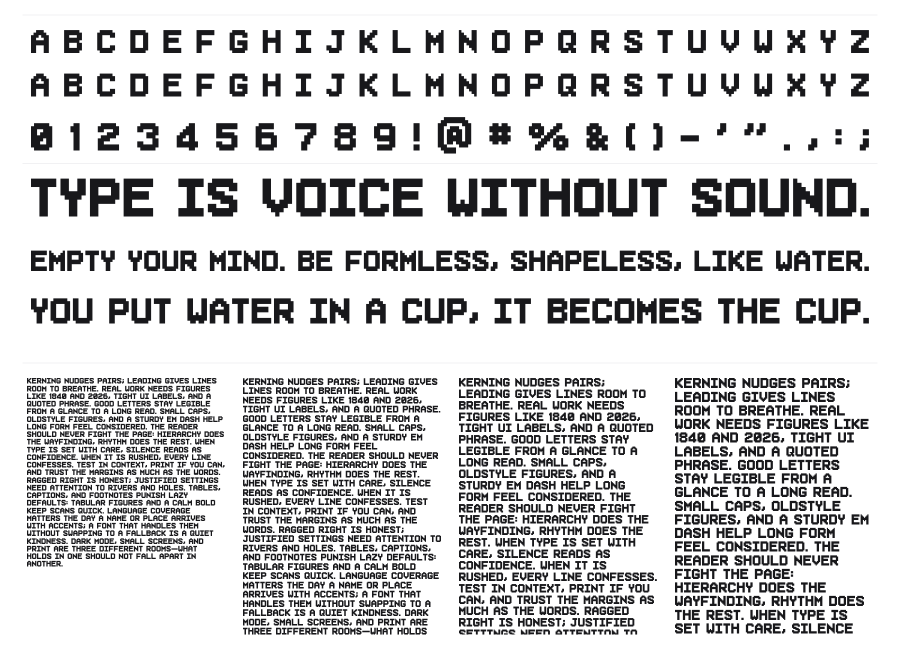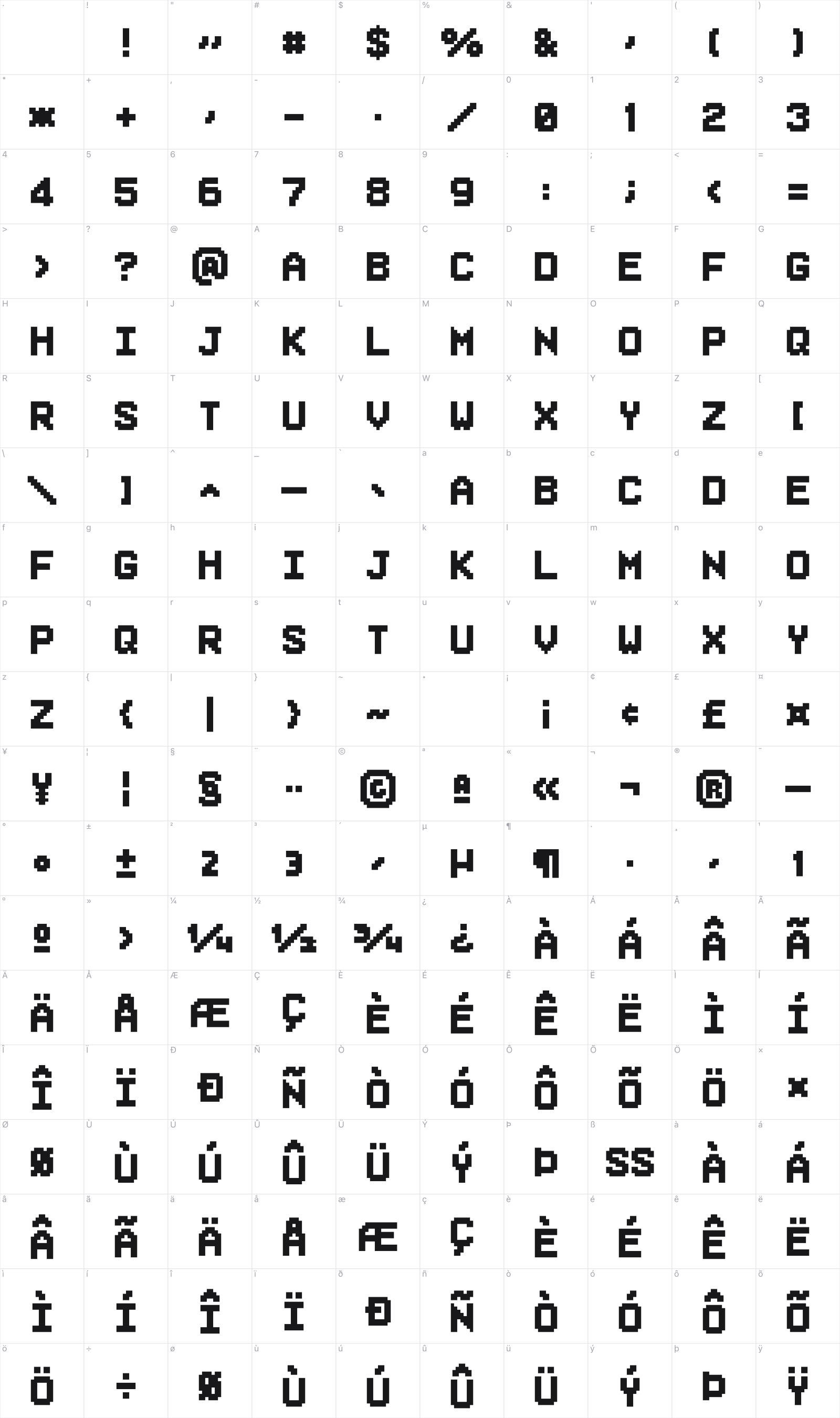
Superstar
Superstar is a bold, blocky pixel font from memesbruh03 with thick 8-bit letterforms that feel right at home in retro gaming contexts. The uppercase-only character set keeps things punchy and direct, built for score screens, title cards, and pixel art projects where you need type that matches the resolution. It hits hardest at large sizes where the chunky geometry reads as intentional rather than lo-fi.